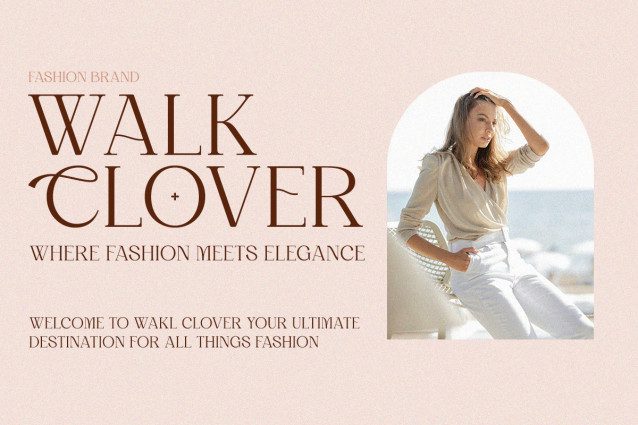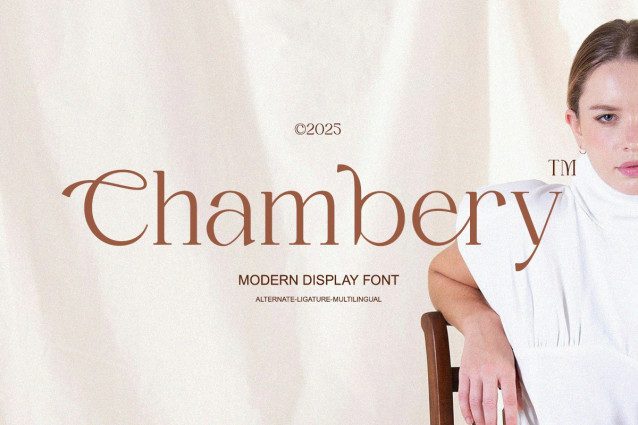
Chambery Font
Chambery Font a modern display serif font that brings refined class and subtle luxury into your visual identity.With soft curves, delicate contrast, and stylish alternates, Chambery creates a timeless typographic voice for your brand. Perfectly suited for high-end editorial layouts, fashion branding, wedding invites, and everything in between.
Its natural elegance and versatility make Chambery the font of choice for creatives who seek grace without compromising on modern edge.